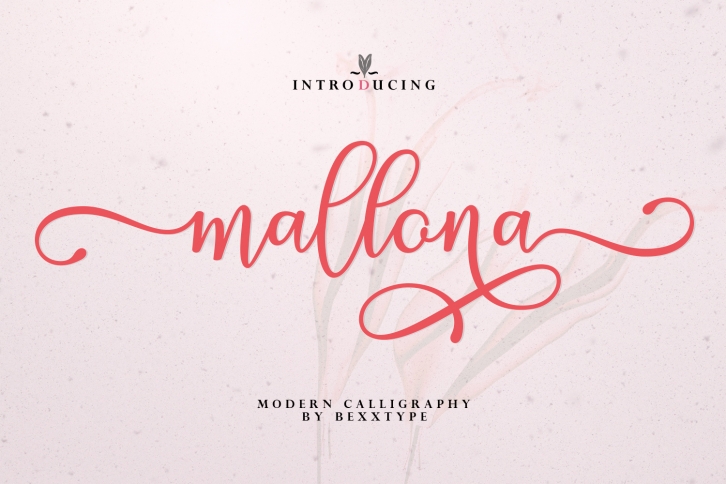
The lovely new Mallona Script! is a trendy and unique font with an authentic style. It was designed by Bexxtype and it's a great choice for creative people who need such a font. It was released on October 14, 2019 and the file size is 21.95 MB. The lovely new Mallona Script! will add an organic vibe to any design idea!